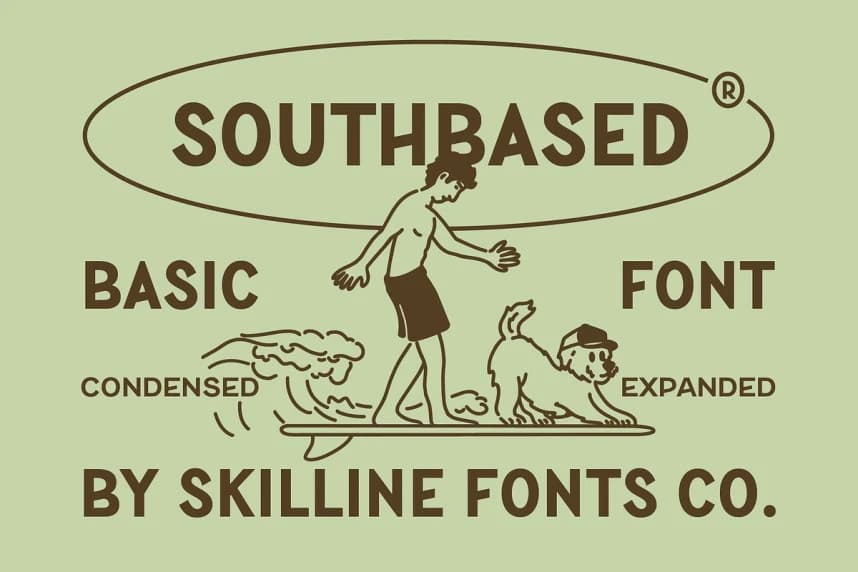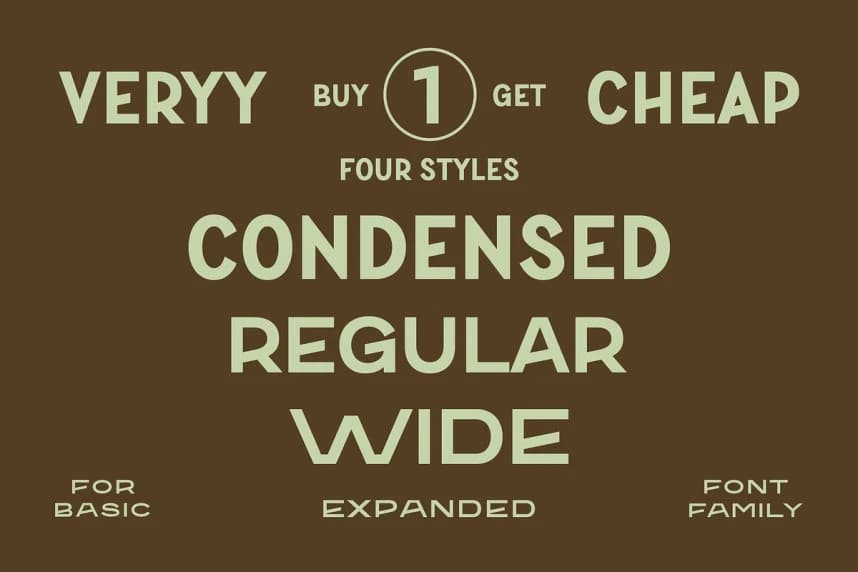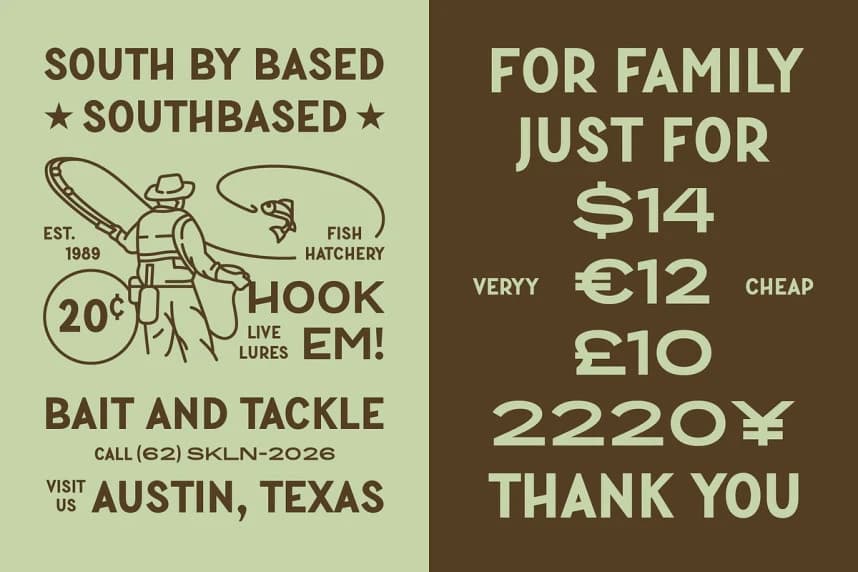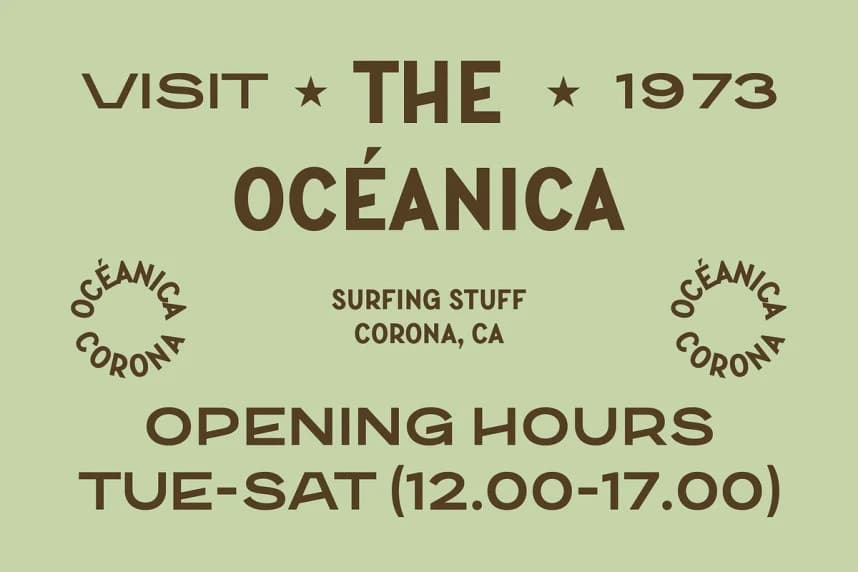
SFC Southbased Font
SFC Southbased Font is a clean retro condensed sans serif font family inspired by vintage surf culture, classic signage lettering, and timeless editorial typography. Designed with confident geometric structure and subtle nostalgic character, it delivers a bold yet highly versatile visual presence.
SFC Southbased